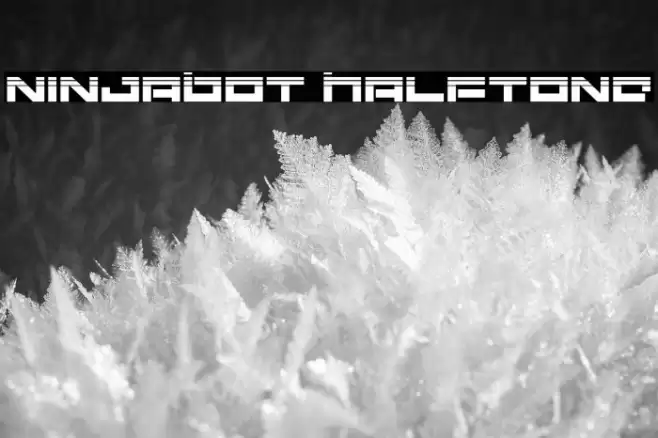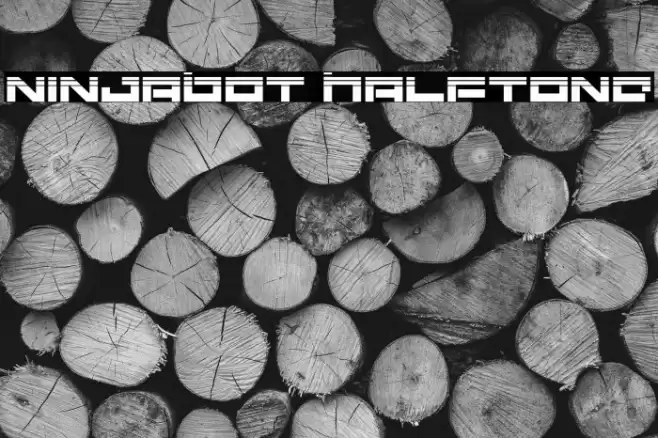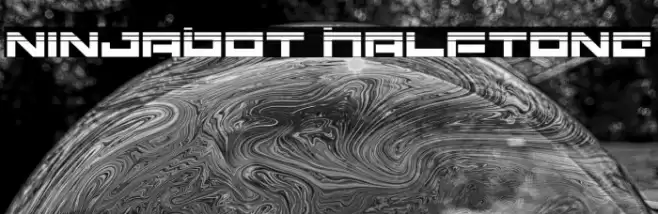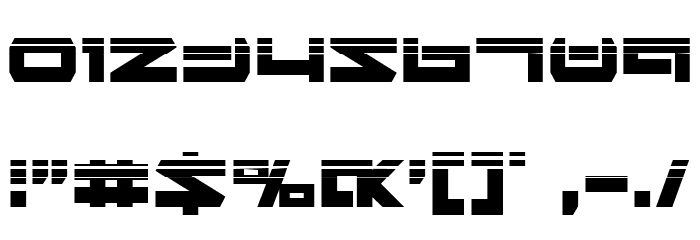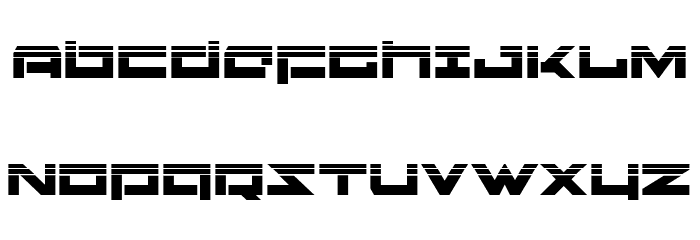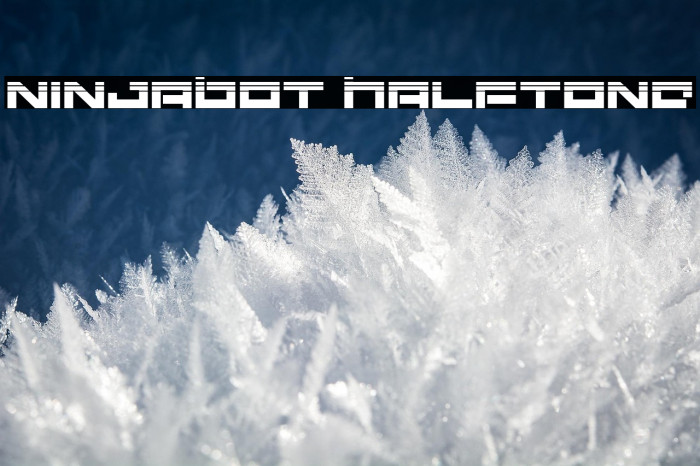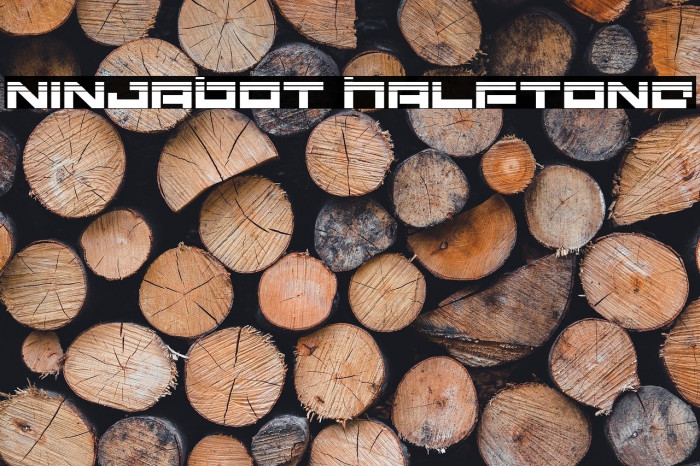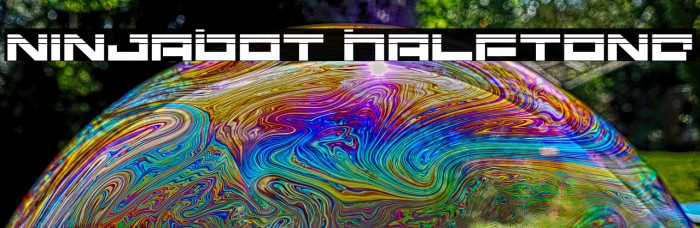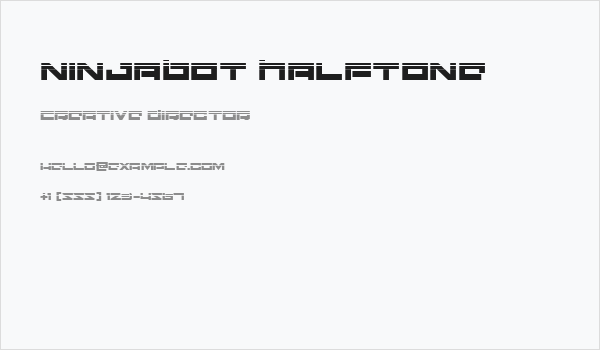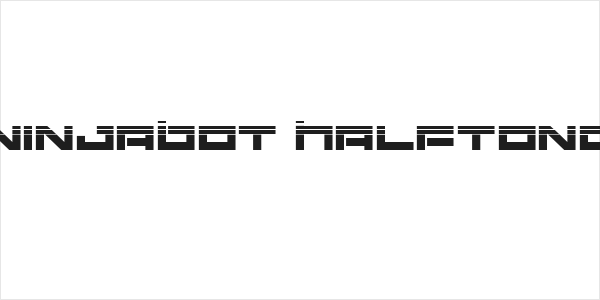
Ninjabot Halftone Font
Ninjabot Halftone Description
This font features a bold and futuristic design with a distinct halftone effect. The characters are constructed with geometric precision, incorporating horizontal lines that create a sense of movement and modernity. The uppercase and lowercase letters share a consistent style, emphasizing angular shapes and sharp edges. Numbers and special characters maintain the same aesthetic, ensuring uniformity across all elements. The font's unique appearance makes it ideal for projects that require a tech-inspired or avant-garde look.
A bold, futuristic font with a halftone effect and geometric precision from Uncategorized fonts.
- Proposed Projects: Ideal for sci-fi themed designs, tech branding, video game titles, and modern posters.
- Contrast: High
- Use Case: Headlines, Logos